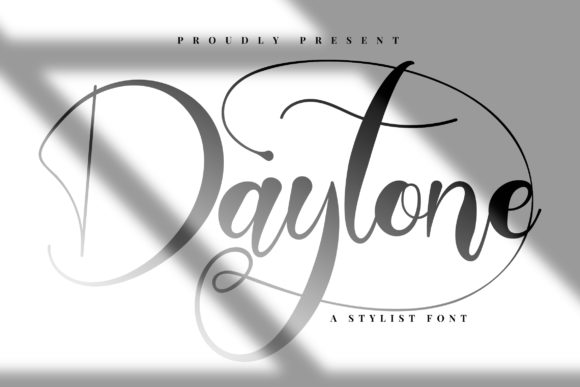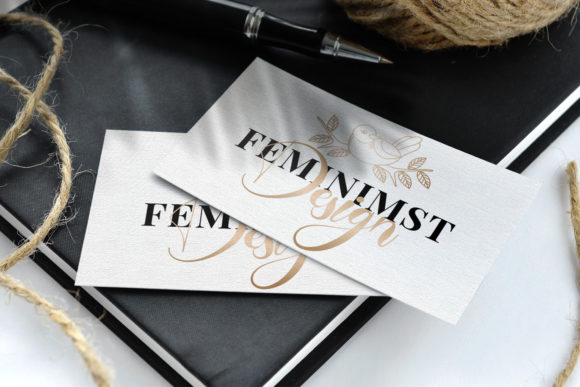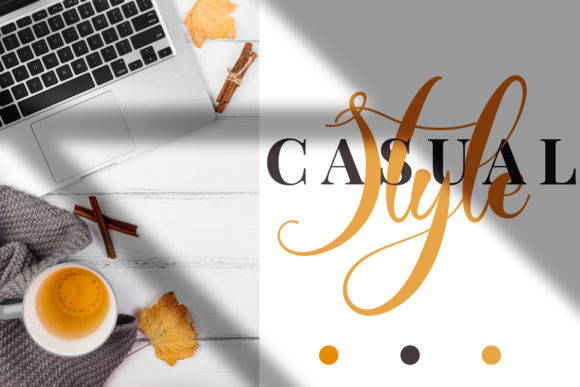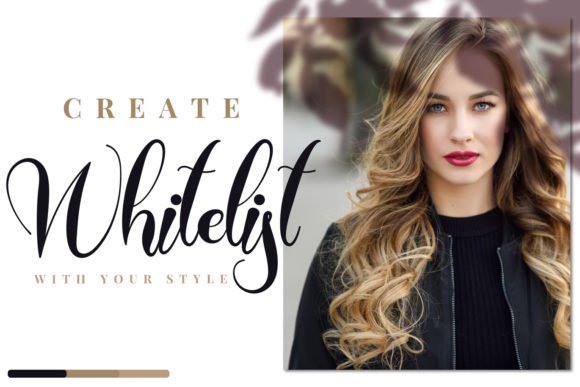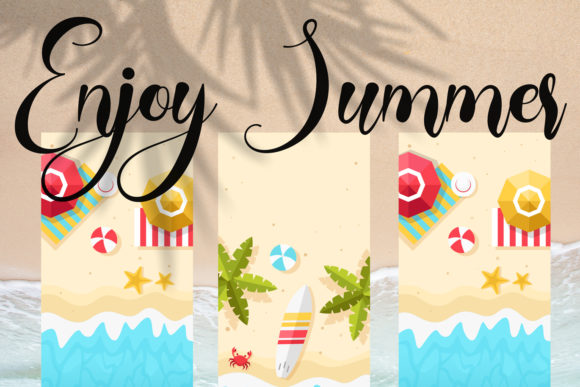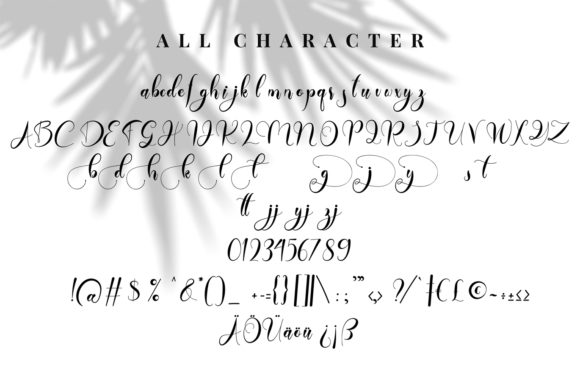
Daytone Font
About Daytone Font
Daytone is beautiful handwritten typeface with exciting characters. It is perfectly suited for a wide variety of projects!